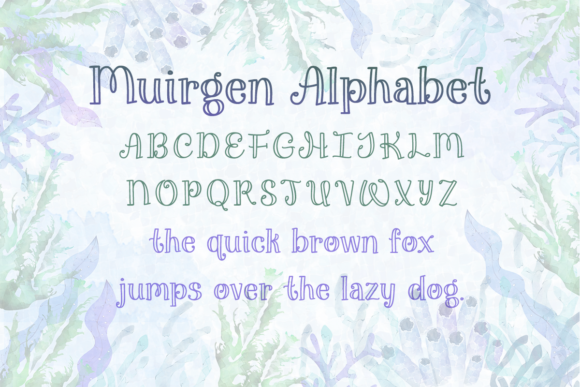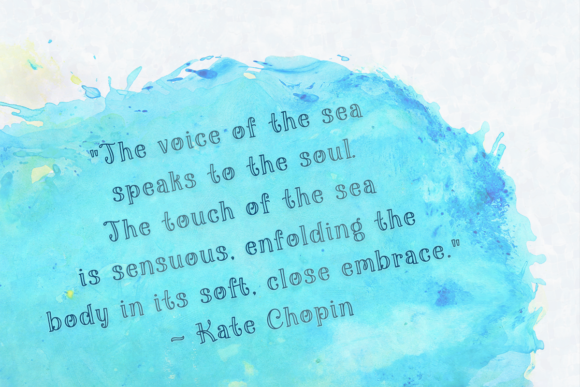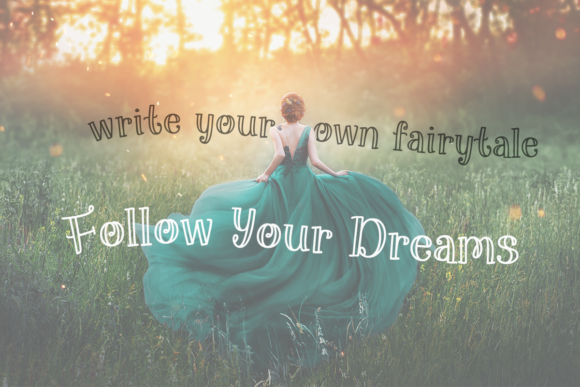
Introduction to Muirgen Font
Have you ever been stuck on a design project, searching for that perfect font to bring your creative vision to life? I know I have. There’s nothing quite like the thrill of discovering a high-quality font that perfectly captures the essence of your project. For me, that moment came when I stumbled upon the enchanting Muirgen Font, a beautiful hand-drawn serif designed by Brittney Murphy Design & Misti’s Fonts.
As a designer, you know how valuable it is to have a reliable design resource like Muirgen Font in your toolkit. With its unique, rustic charm and high legibility, this font is perfect for adding a touch of friendliness and whimsy to your projects. Whether you’re working on a creative project with a transparent background or need a font that stands out on its own, Muirgen Font is a great choice.
Key Features of Muirgen Font
- Unique characteristics include elegant lines, subtle flourishes, and a distinctive aesthetic.
Honest Review: Muirgen Font
Muirgen Font is a beautiful design resource that offers a high quality, elegant aesthetic perfect for a variety of creative projects. I was initially drawn to its simple yet distinctive design, which features a transparent background and subtle nuances that make it stand out.
Some potential limitations: ⚠️ While the font is highly customizable, it may not be suitable for all design projects. For example, its elegant design may not be the best fit for bold or edgy projects. Additionally, the font’s transparent background can sometimes make it difficult to read on certain backgrounds.
Muirgen Font
Tips for Getting the Most Out of Muirgen Font
To get the most out of the Muirgen Font, consider the following tips: